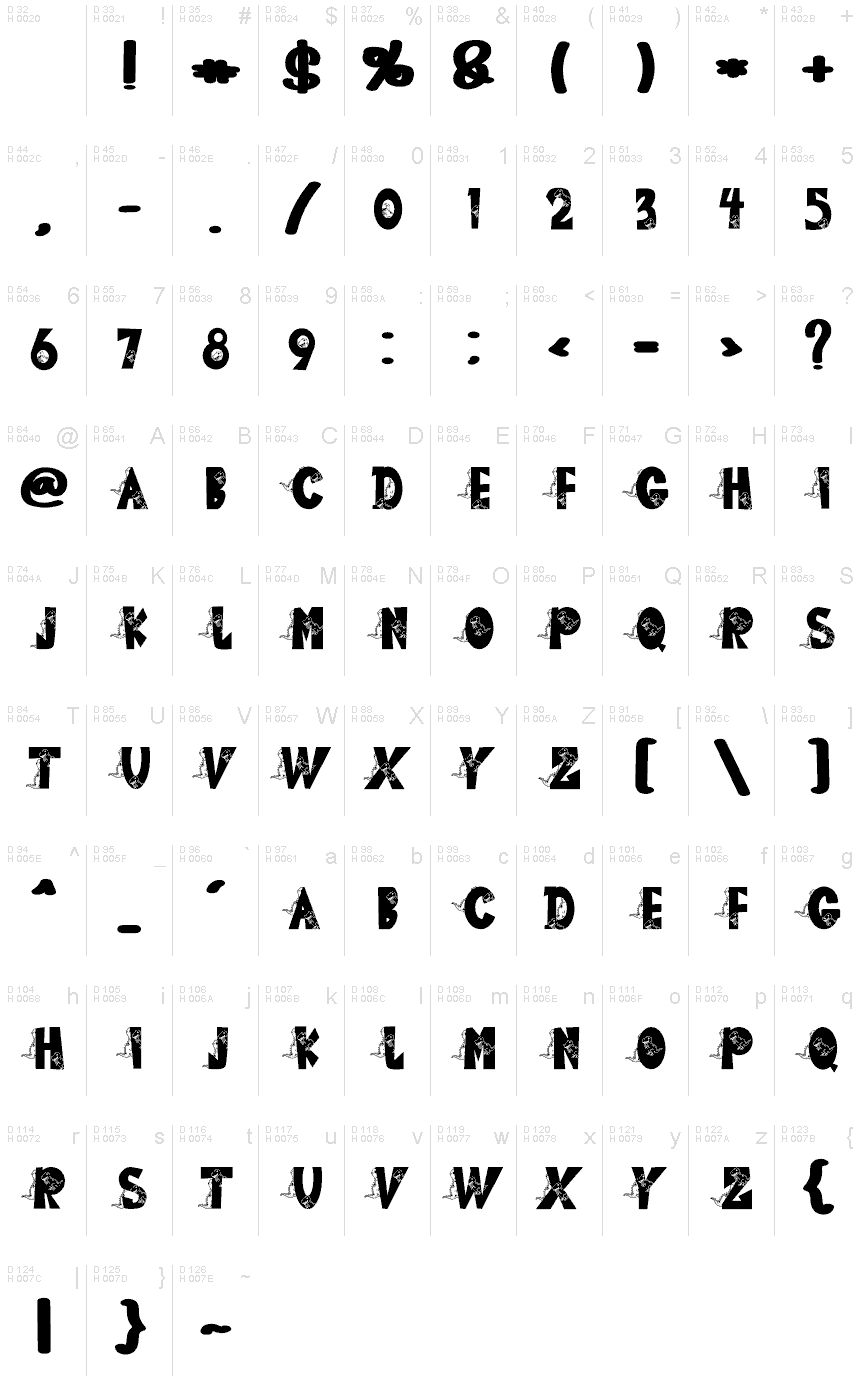
Cute Dino
Cute Dino font by Mr. Soon Design is a bold display typeface boasting an illustrative and decorative charm. Its whimsical and eye-catching style relaxes the atmosphere of any project, making it fun, youthful, and approachable. The free font’s thematic look invites viewers to leave seriousness aside in favor of relaxation.
Use this font to create greeting cards, branding designs, advertisements, magazines, headlines or sub-headers for books covers. It will also work for children’s book designs, animations graphics development, packaging design for food or toys aimed at kids and more! Whether used digitally or in print product packages like cereal boxes; Cute Dino has your back!